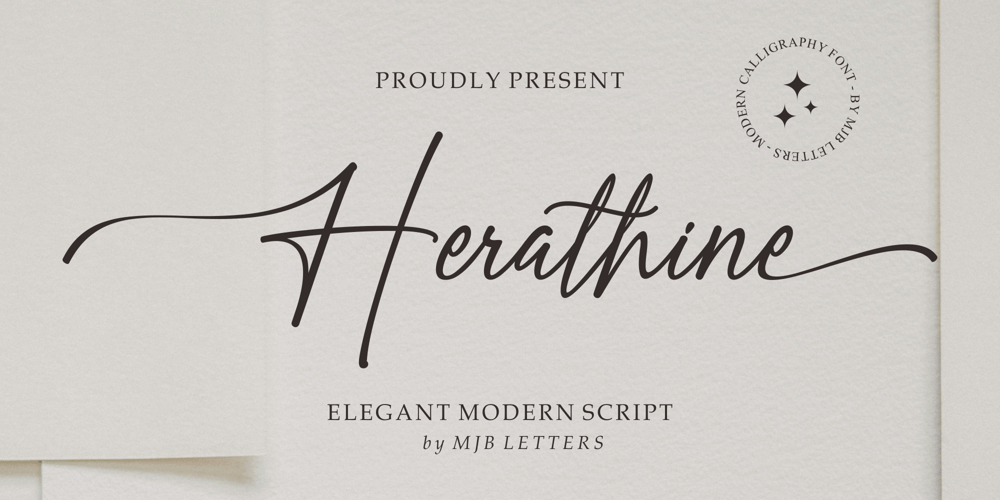
Herathine Font Family was designed by Muhammad Mujibulloh and published by MJB Letters. Herathine contains 1 styles and family package options. Herathine is a Modern Script font that exudes elegance and sophistication. Designed to bring a touch of class to any project, Herathine is perfect for creating stunning wedding invitations, luxurious branding, and eye-catching social media posts. Its fluid and graceful letterforms make it an excellent choice for any design that requires a personal and refined touch.Herathine offers a variety of features that enhance its versatility and beauty: Stylish Alternates Ligatures Swashes Multilingual Support High-Quality Vector Glyphs Herathine is the ideal choice for designers seeking a modern and elegant script font that adds a touch of luxury to their projects. For more information or to purchase Herathine.